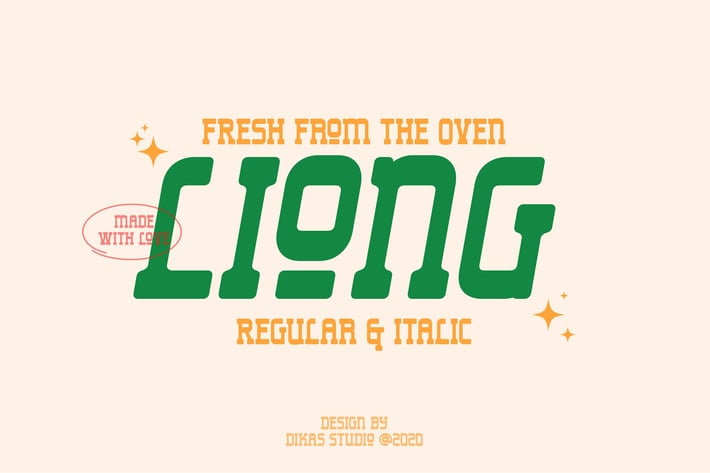
Liong Slab - 2 fonts styles
Liong Slab is a Bold & retro slab serif typeface, they have a weight bar and slab. Liong comes with 2 style regular & italic, perfect for logos, badges, typography and any retro design needs.